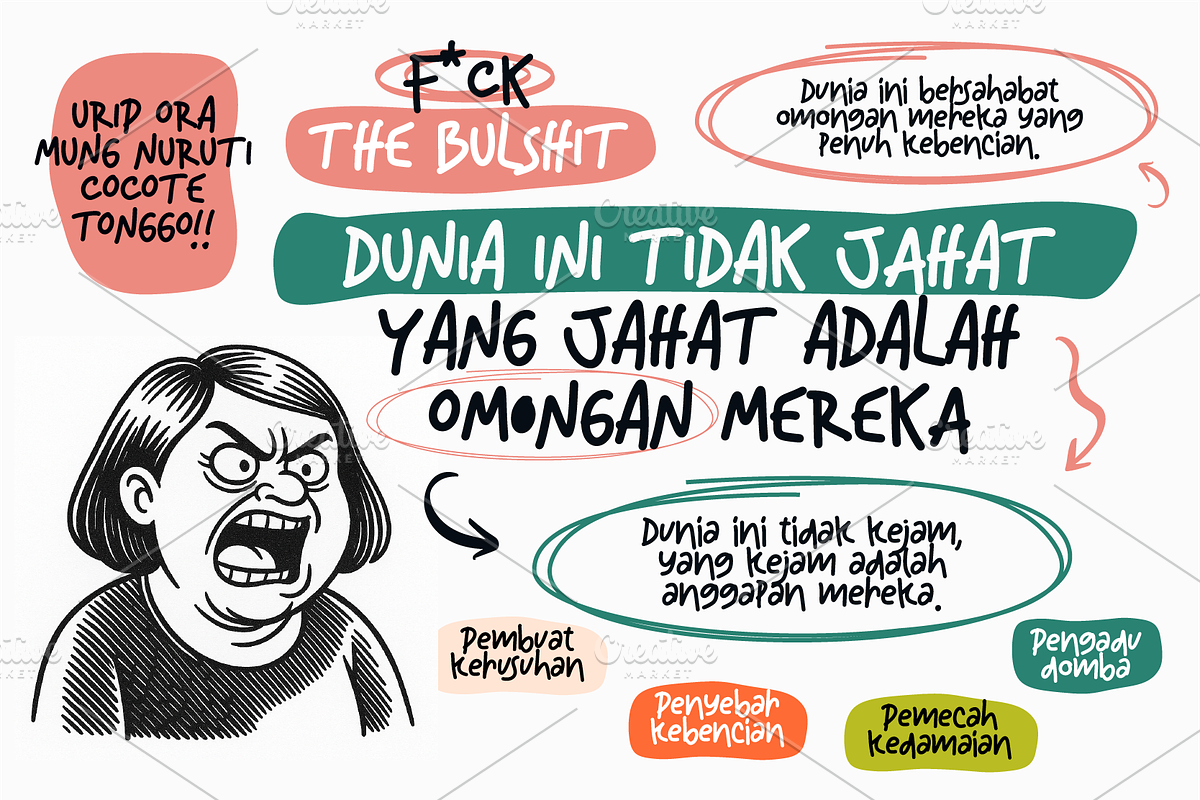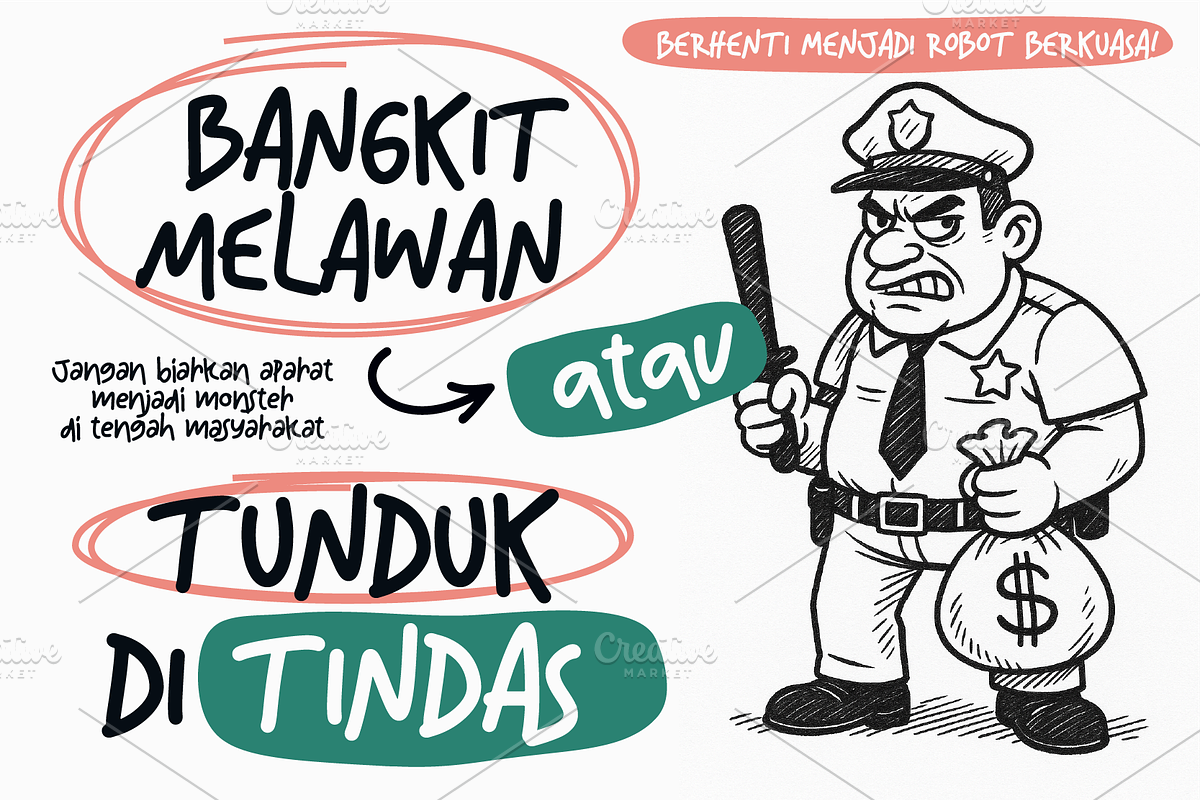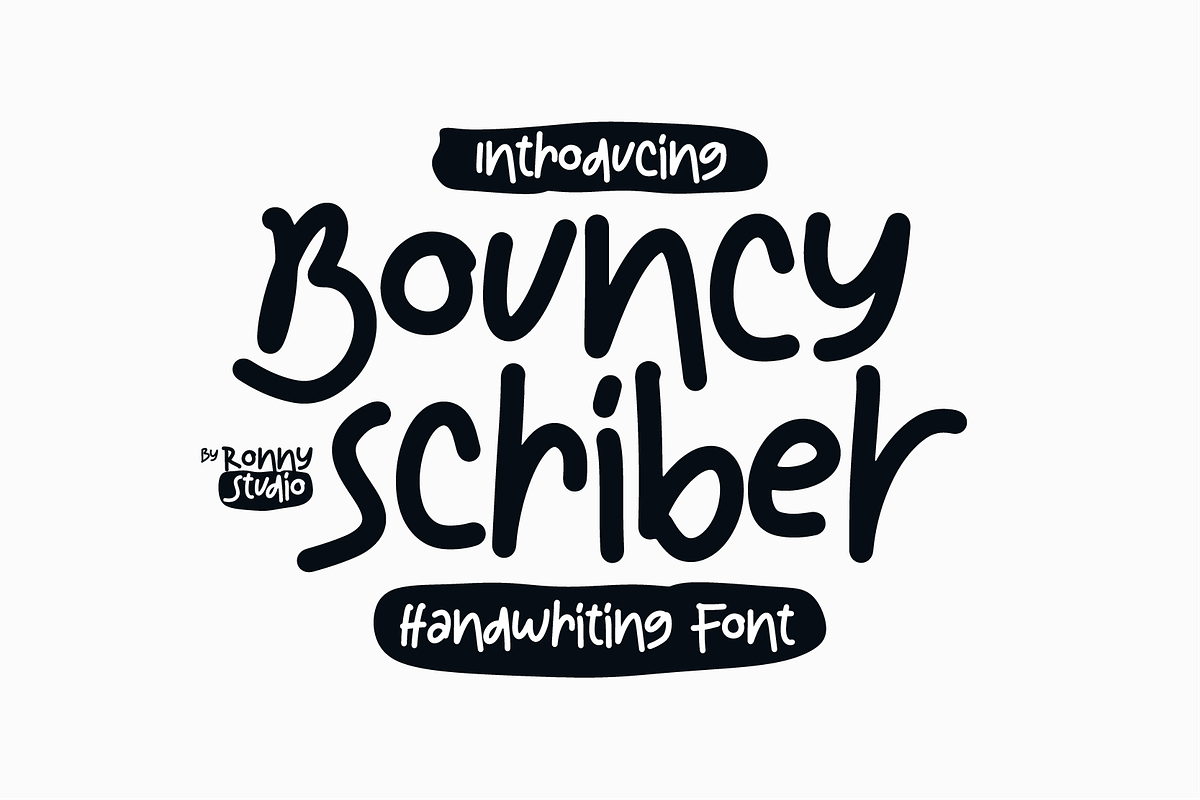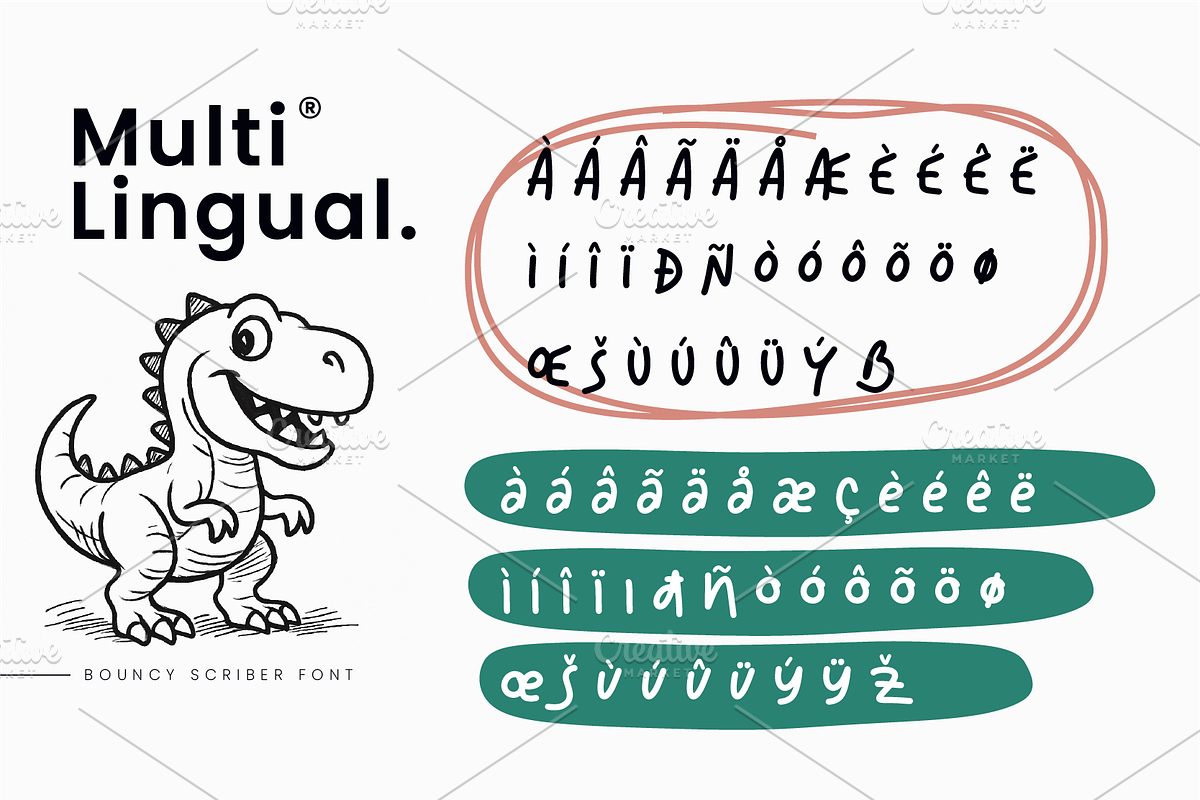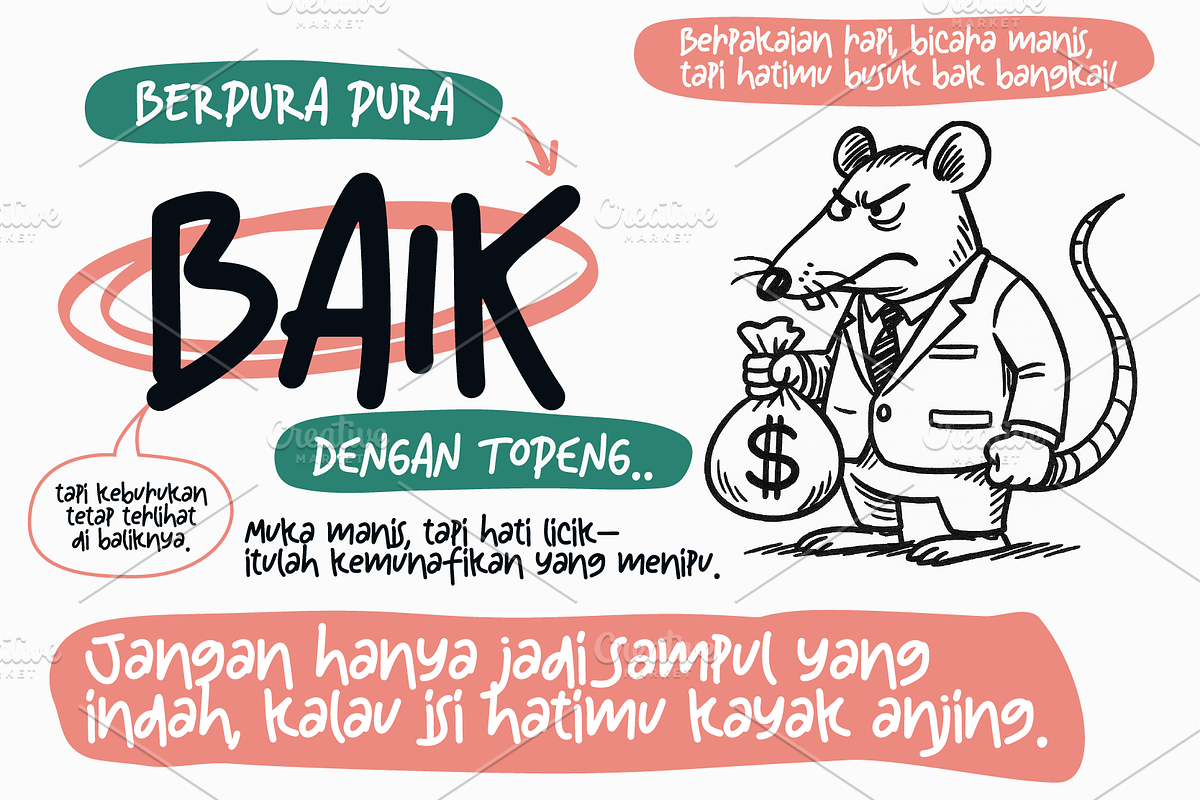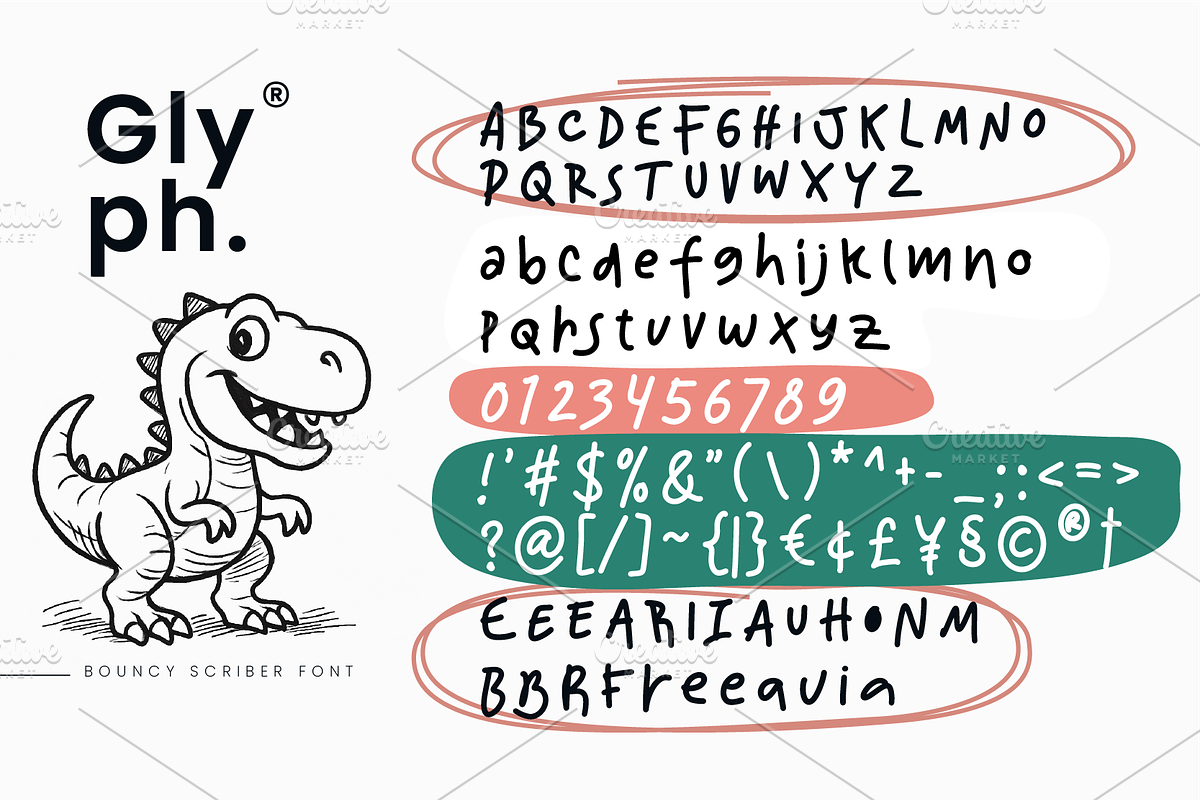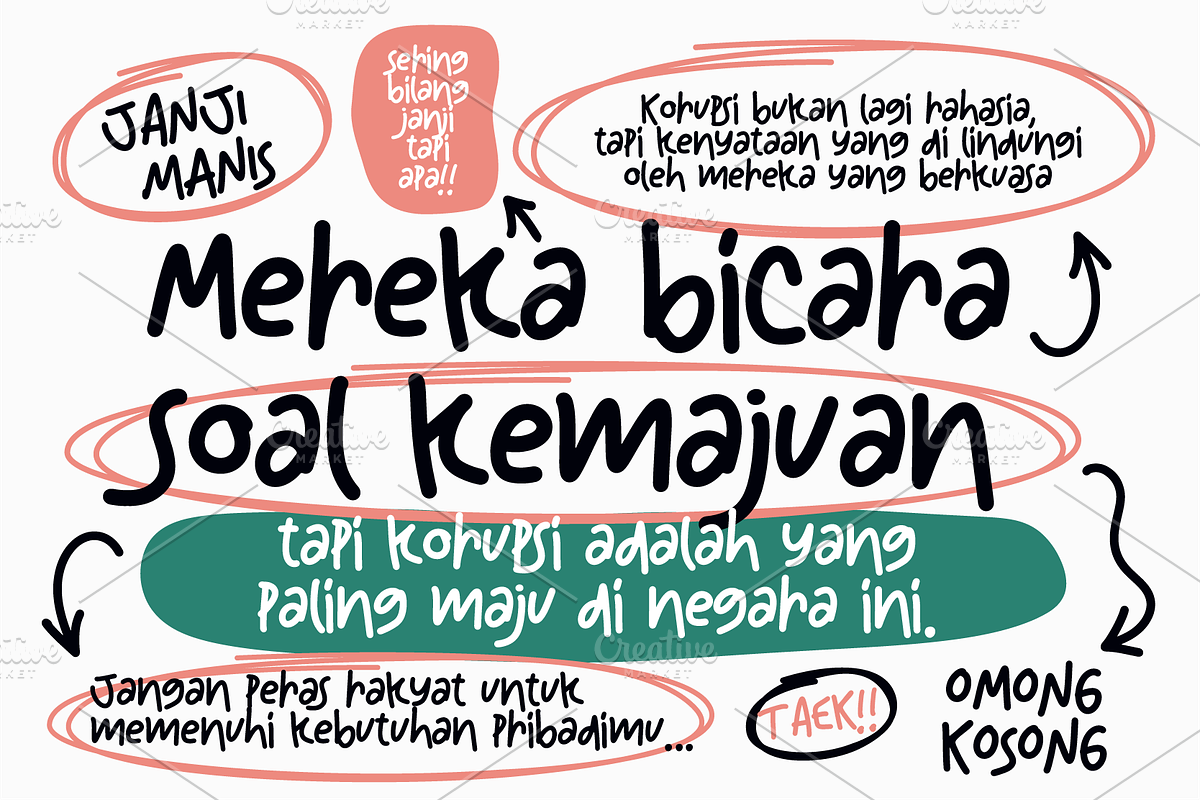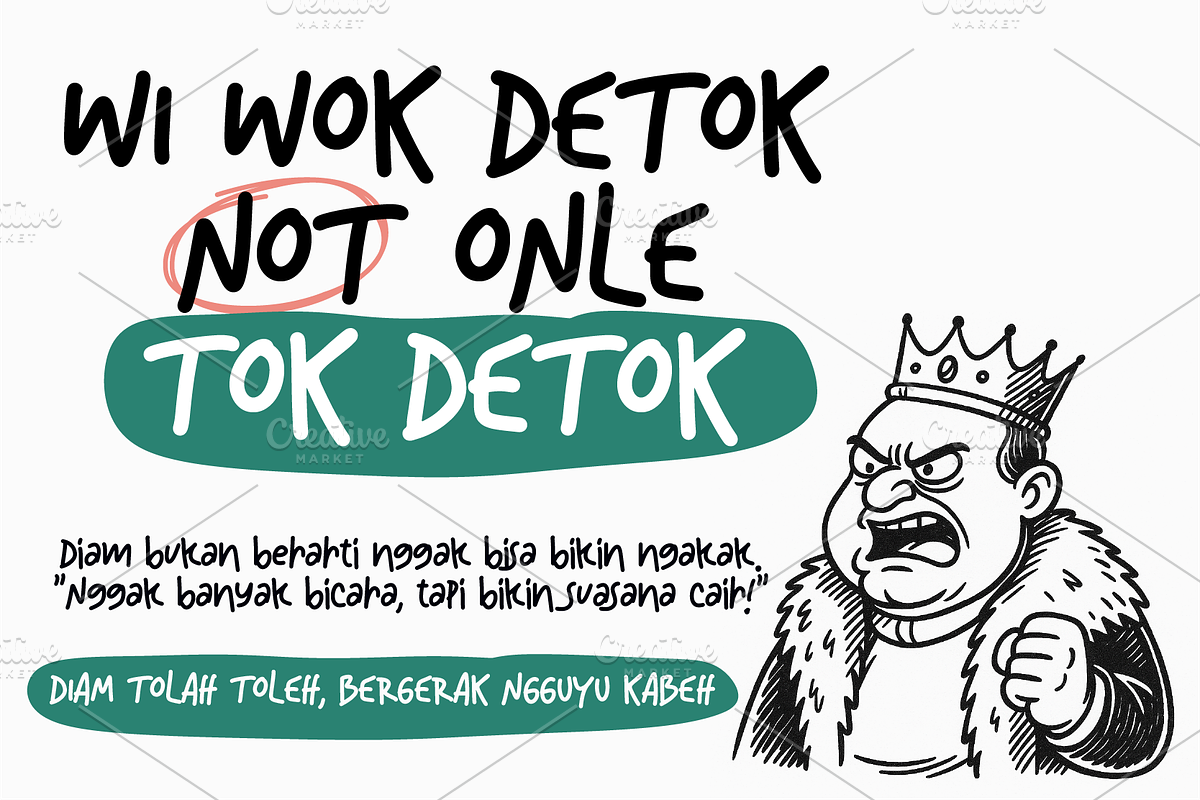
Bouncy Scriber Handwriting Font
Introducing Bouncy Scriber – A Playful and Dynamic Handwriting Font
Bouncy Scriber is a fun and casual handwritten font designed to add a touch of flair to your design projects. Perfect for posters, merchandise, branding, social media, and creative work, Bouncy Scriber brings a unique and vibrant style to elevate your typography. Its dynamic handwritten flow and unique characters make your designs stand out and full of life.
- Playful and Handcrafted Style – Captures the natural, flowing look of handwriting with energetic and quirky shapes.
- Versatile Use – Ideal for posters, merchandise, social media, branding, invitations, and other creative projects.
- Uppercase & Lowercase – Complete character set with multilingual support.
- Alternates & Ornaments – Includes extra decorative characters and elements for more design options.
- Bold poster designs and promotional materials
- Trendy branding and visual identity projects
- Fun social media graphics and digital content
- Merchandise such as T-shirts, mugs, and tote bags
- Greeting cards, invitations, and creative stationery
- Any project needing a playful, casual, and unique touch
Elevate your design projects with Bouncy Scriber and let your typography express creativity and fun.